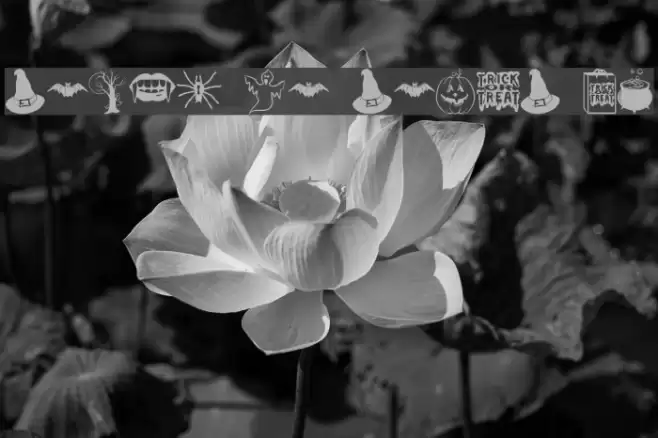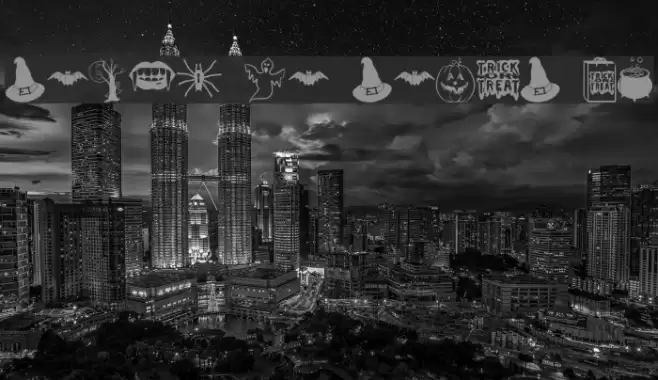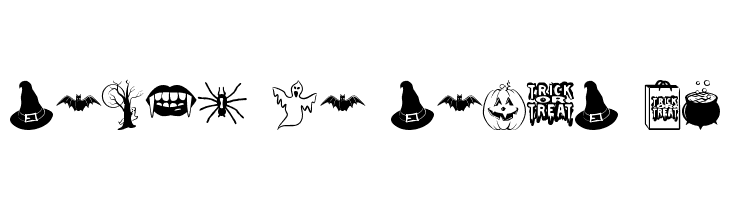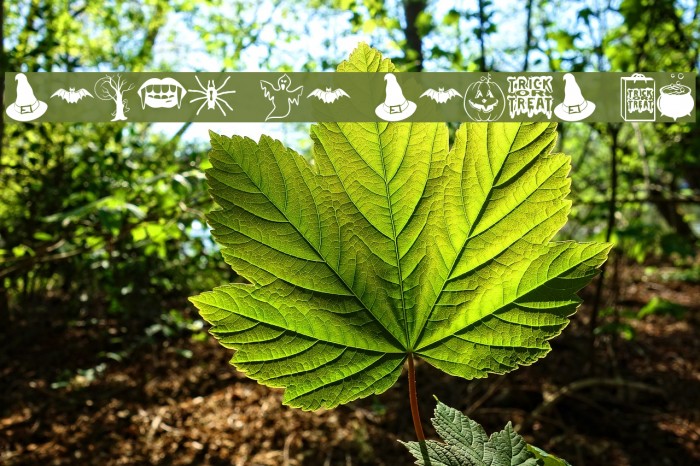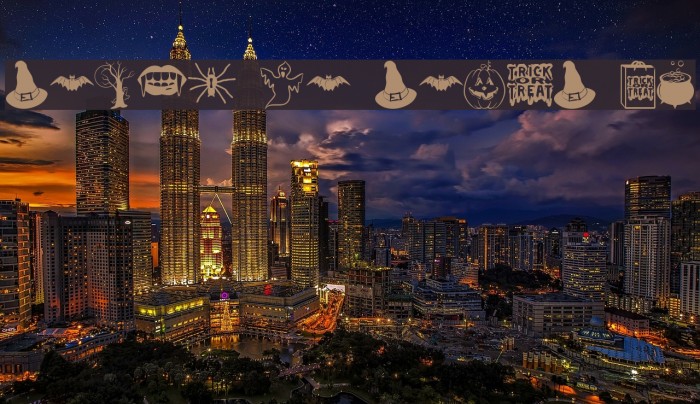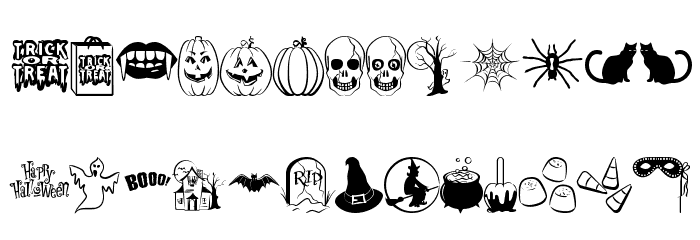
Trick or Treat BV Font
Trick or Treat BV Description
This is a decorative Halloween-themed set of icons and graphics rather than a traditional font. It includes various spooky and festive elements such as pumpkins, skulls, bats, witches, and more. These graphics are designed to capture the essence of Halloween with playful and eerie imagery. The elements are bold and distinct, making them suitable for thematic designs and projects that require a Halloween touch.
A Halloween-themed decorative set of icons and graphics from Halloween fonts.
- Proposed Projects: Ideal for Halloween party invitations, themed posters, event decorations, and social media graphics.
- Use Case: Logos, Posters, Invitations